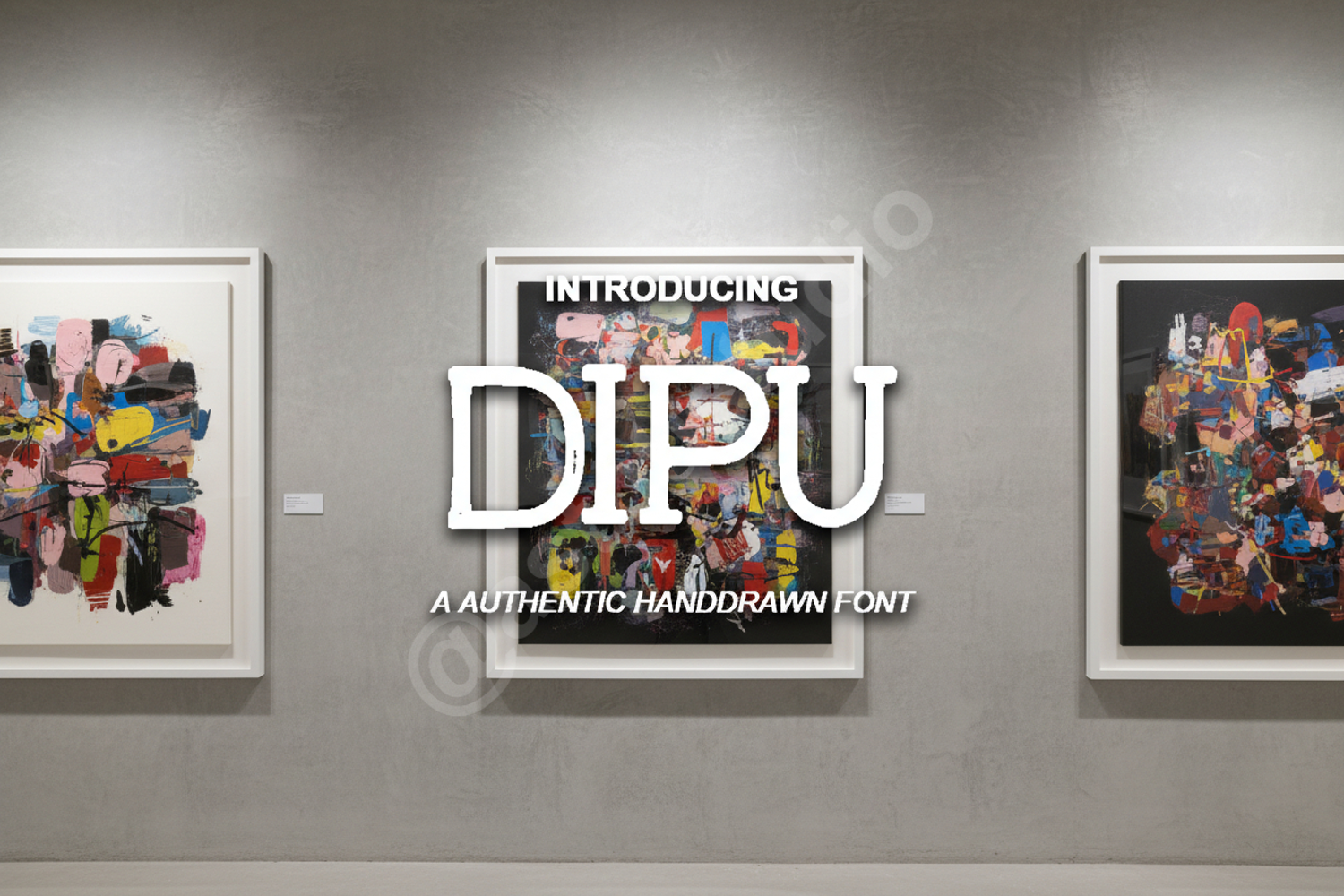
Dipu - Modern Minimalist Sans Serif
Dipu
Dipu is a premium sans serif typeface that embodies modern minimalism and professional elegance. Crafted with precise geometric lines and balanced proportions, this font is designed to bring a clean, sophisticated aesthetic to any creative project. Whether you are building a high-end brand identity or designing a sleek user interface, Dipu provides the versatility and clarity needed to stand out in a crowded market.
- Full set of uppercase and lowercase letters
- Numbers, punctuation, and standard symbols
- Multilingual support for global accessibility